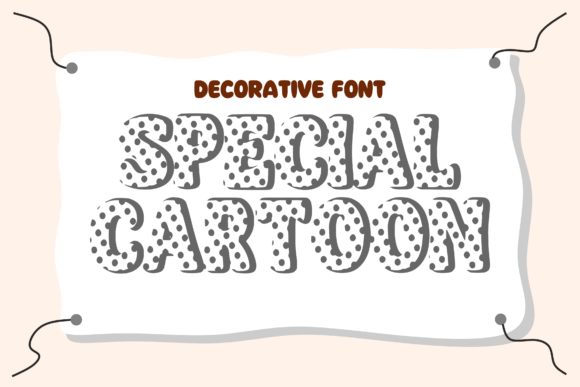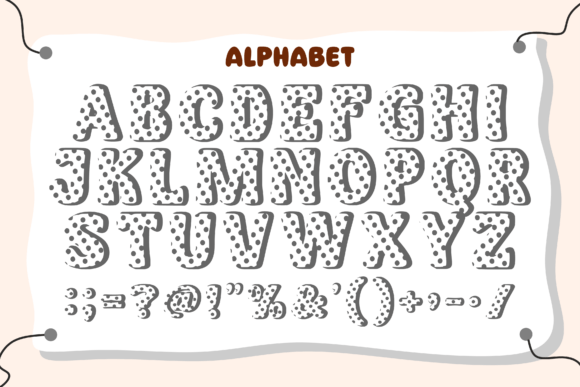
Introduction to Clown Sketch Font Font
Fonts play a crucial role in design, and the Clown Sketch Font font is a typeface that brings both character and versatility to any project. Whether you’re working on a branding project, a website, or a print design, the Clown Sketch Font font offers a unique style that can elevate your work.
Embark on a whimsical journey with the Clown Sketch font, where cuteness and charm come to play.
The irresistible allure of this decorative masterpiece resembles a delightful clown, with its bubbly polka dot characters adding a dash of whimsy Itβs perfect for bringing to life cartoon-inspired designs, injecting a playful vibe into childrenβs games, or simply lending a lovely touch to any creation.
Key Features of Clown Sketch Font Font
Why Choose Clown Sketch Font Font?
The Clown Sketch Font font is more than just a typeface β it’s a design tool that helps you communicate your message with style and clarity. Its unique character set and versatile design make it suitable for a wide range of applications, from elegant invitations to bold headlines.
With its carefully crafted letterforms and balanced proportions, the Clown Sketch Font font ensures readability and visual appeal across all mediums.
What makes Clown Sketch Font font special?
The Clown Sketch Font font stands out with its unique design, exceptional readability, and versatility across various design applications.